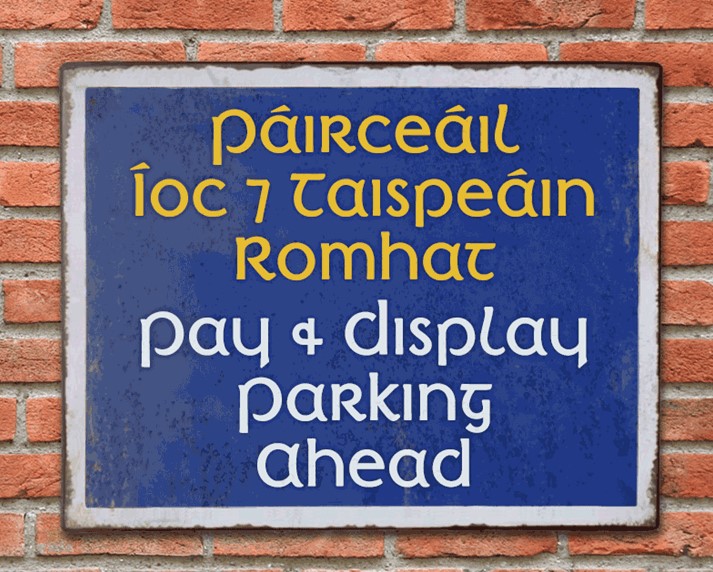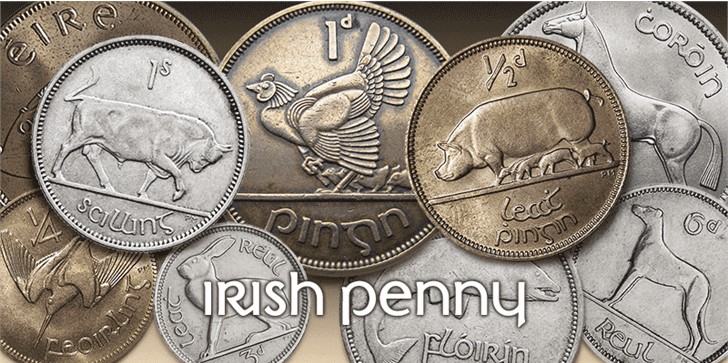
Irish Penny Font
Right here is the Irish Penny Font. This is as welsh typeface that is quite similar to the iamddb font and also it is available for free personal use. It has grown to be as fast as created for the number one creator within the dust just like the tesla font. And this quantity has progressed every day with modern-day-day-day.
The number one is a font that is created with the beneficial content of the usage of this font. He took the idea from the beginning. This font is used for t-shirt printing and logo designing capabilities. Irish Penny Font Free Every form of typefaces has a minimalist font.